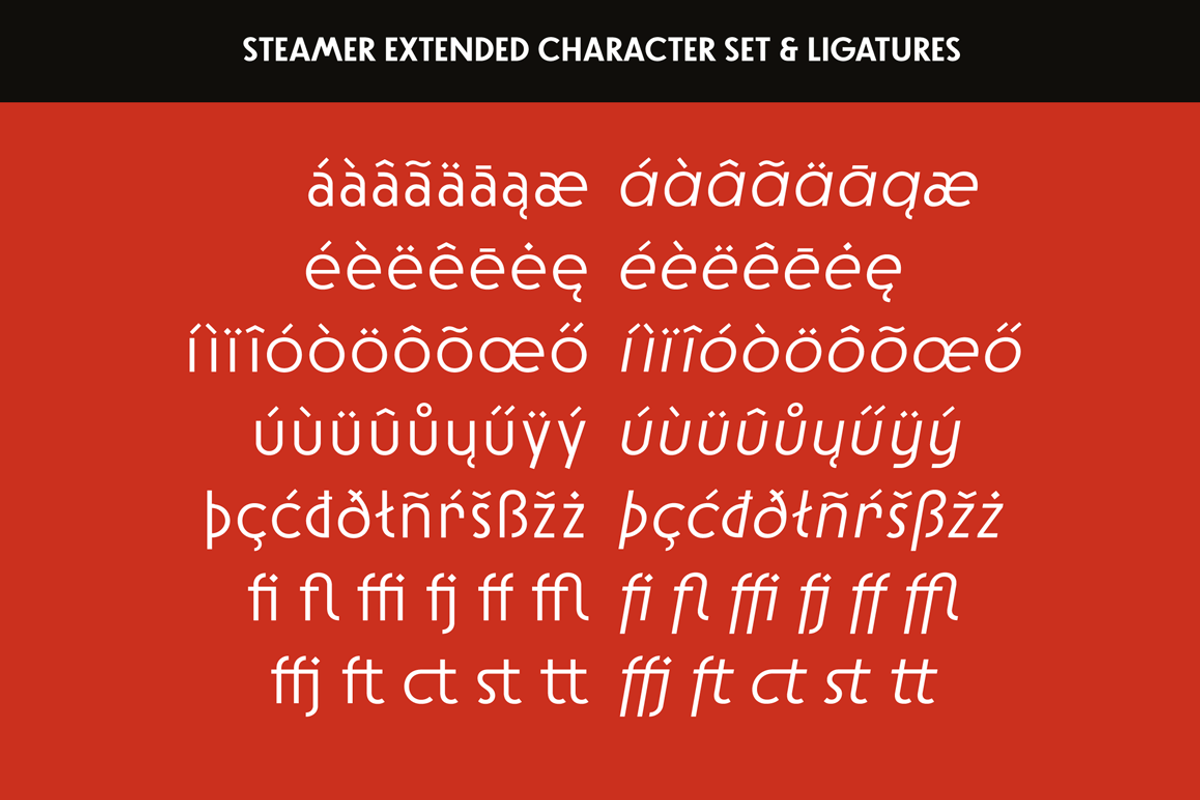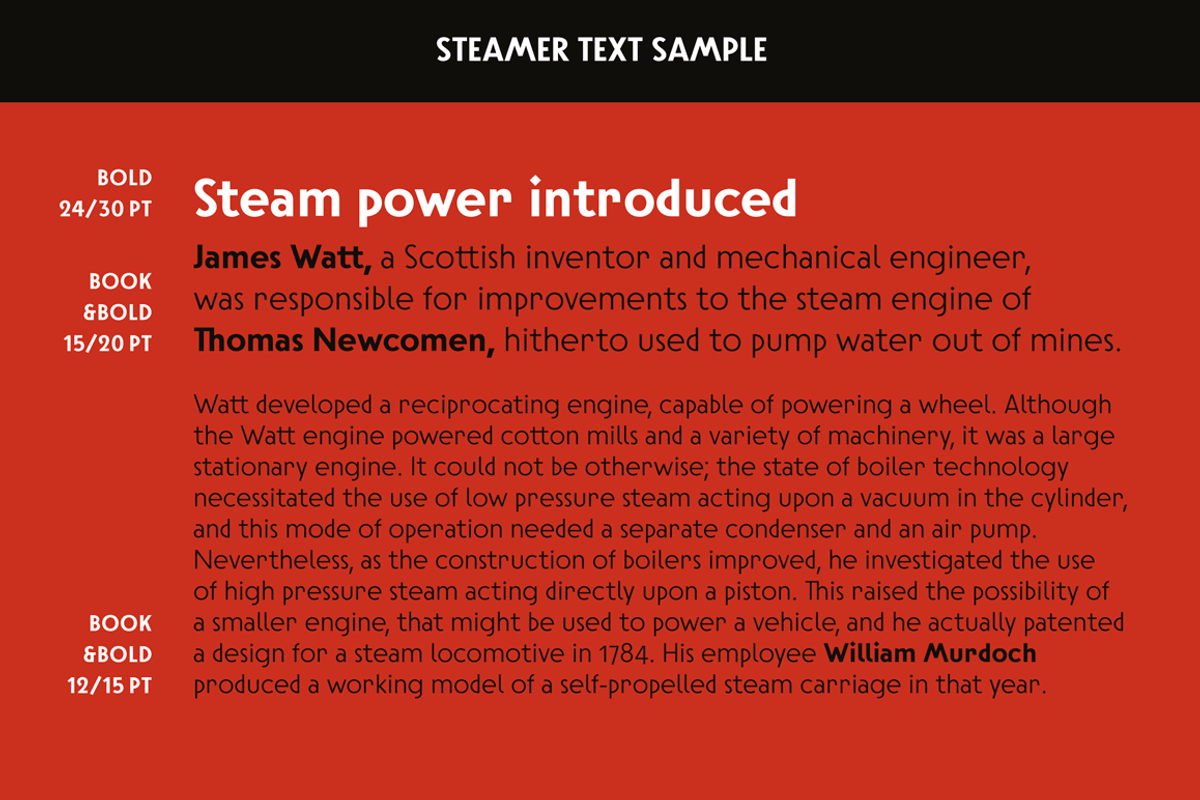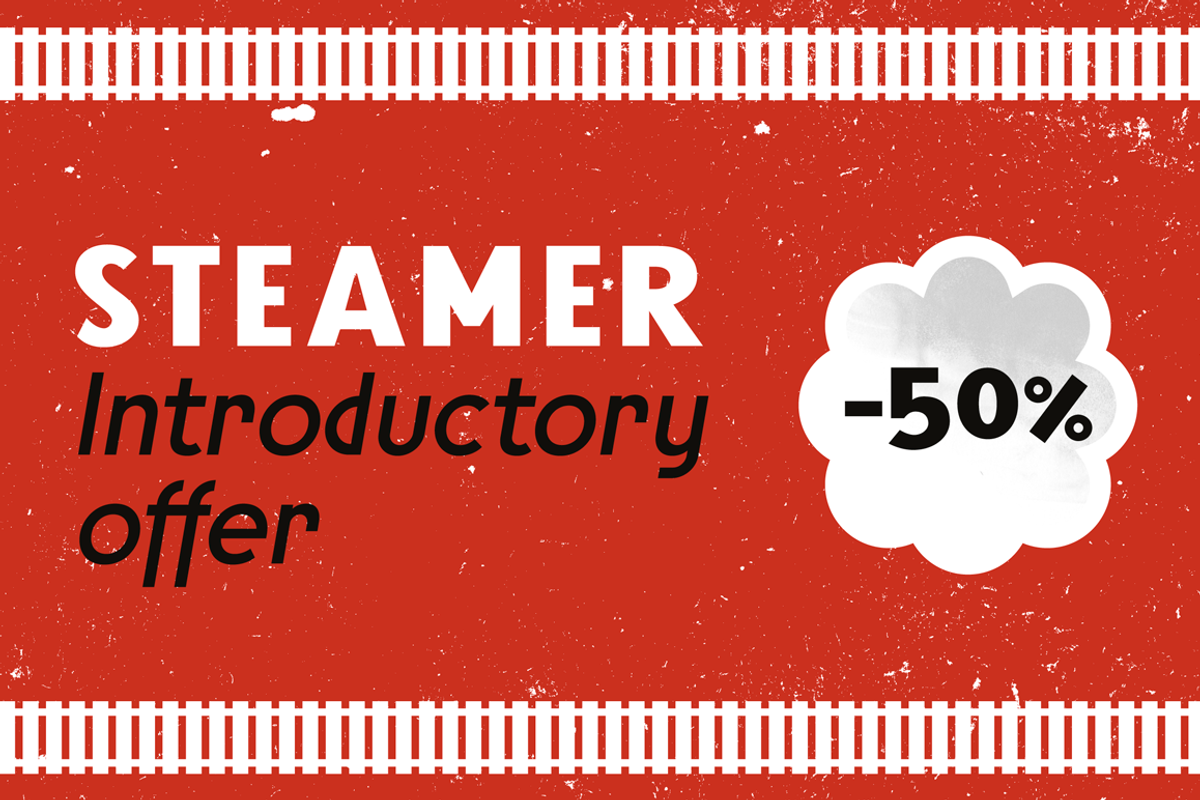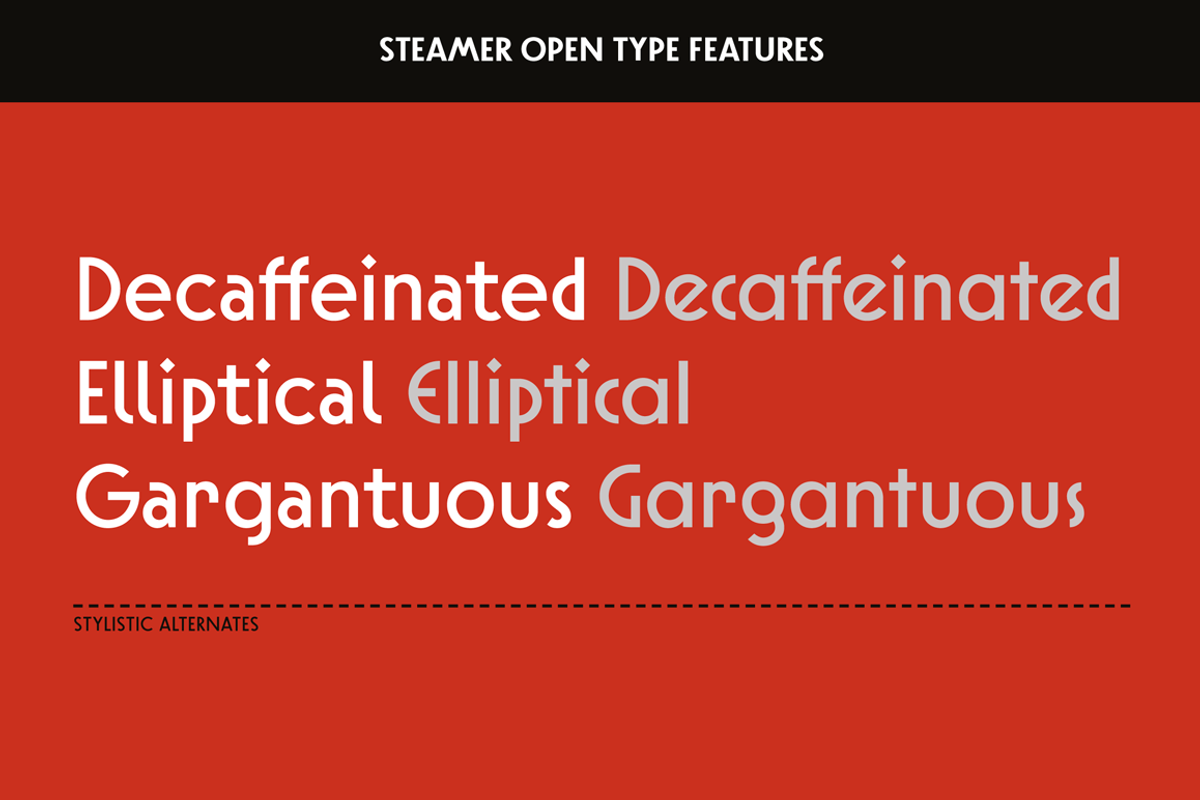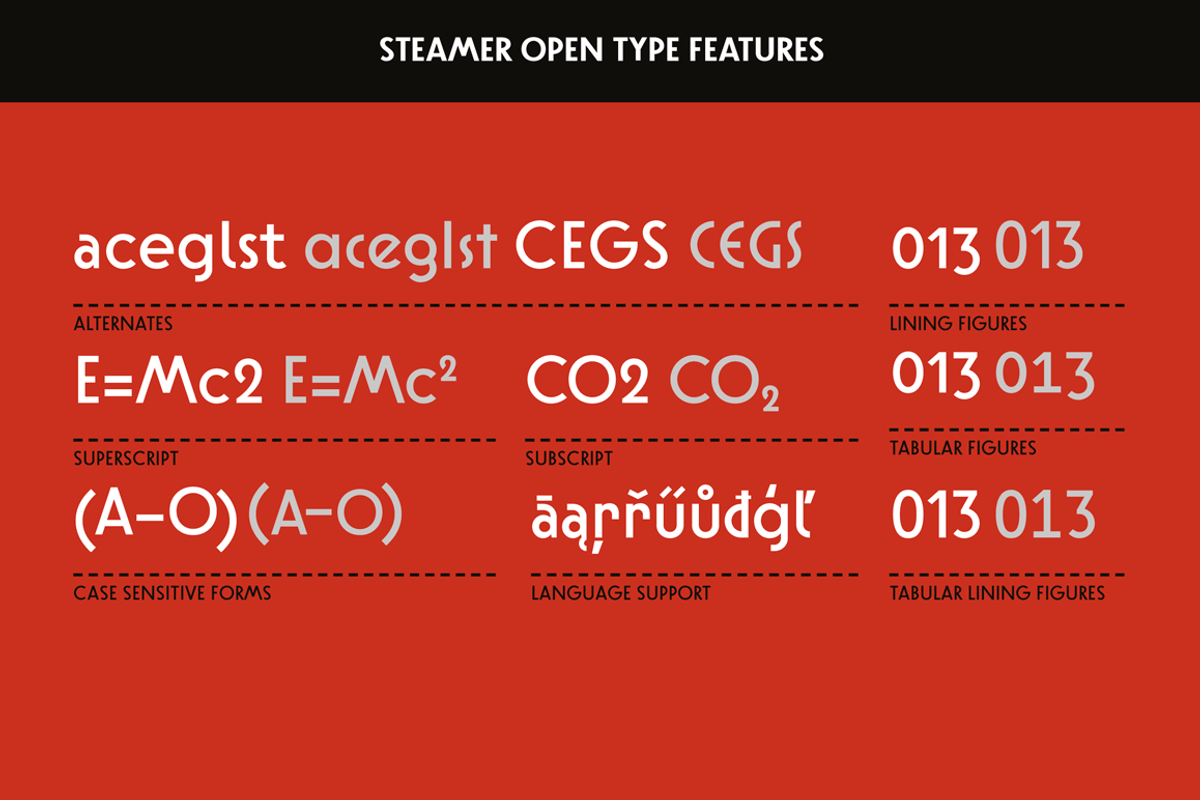
Steamer Font Family -50 %
Steamer Font Family -50 % by Erik Bertell Fonts is a font selected for branding, posters, packaging, typography.
Steamer Font Family -50 % by Erik Bertell Fonts fits naturally into Branding, posters, packaging, typography.